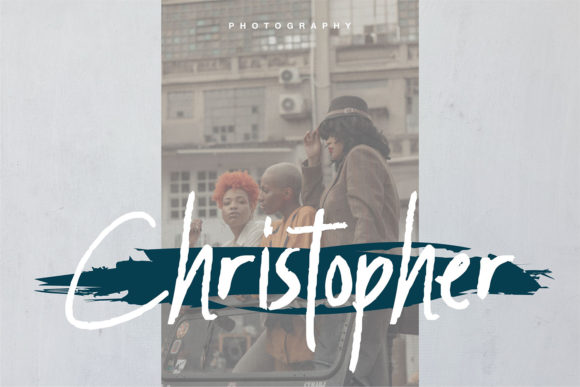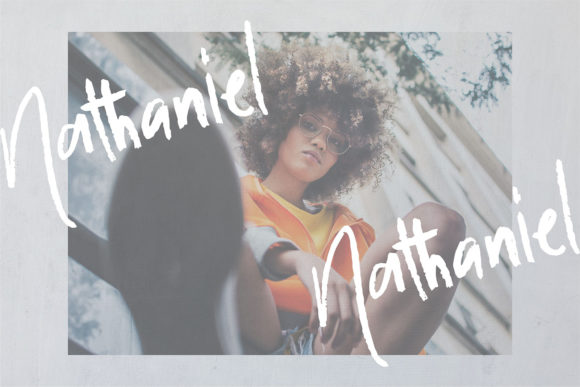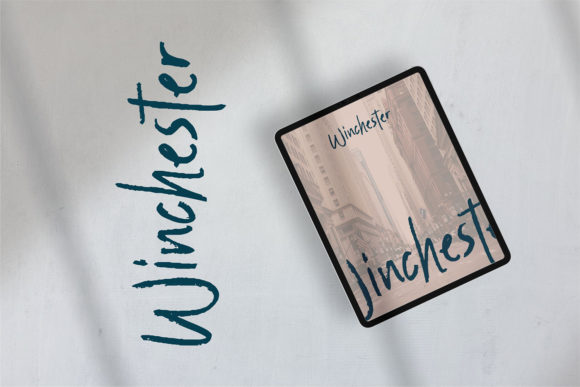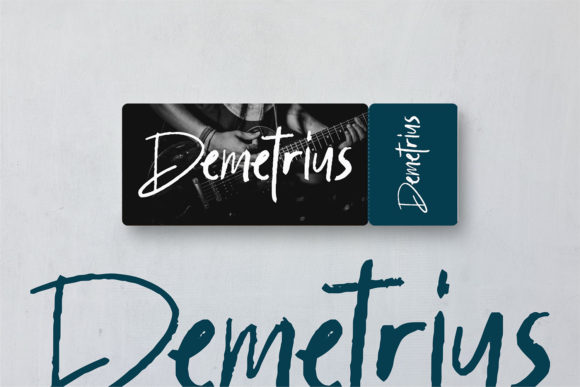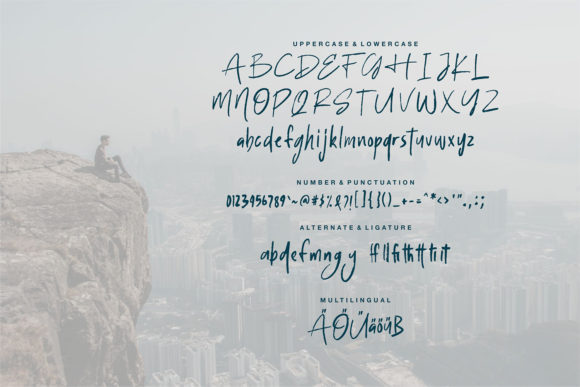
Adaury Font
About Adaury Font
“Adaury” is a stylish and brittle brushed handwritten font that captures attention with its eye-catching and charming appearance. With its unique brush strokes and elegant design, this font has the power to elevate your design ideas and make them stand out.
The beauty of “Adaury” lies in its stylish and brittle look. The brush strokes used in the font give it a textured and handcrafted feel, adding a touch of authenticity and character to your designs. The letters have a delicate and graceful appearance, making them visually captivating and appealing.
When it comes to catching the viewer’s attention, “Adaury” does not disappoint. The unique brush style of the font creates a visual impact, drawing the eye and making your design elements pop. Whether you’re using it for headlines, titles, or logos, “Adaury” will make a statement and leave a lasting impression.
Charm is another characteristic of “Adaury” that sets it apart. The font’s brittle and delicate design adds a touch of elegance and sophistication to your designs. It conveys a sense of refinement and class, making it perfect for projects that require a touch of luxury or exclusivity.
One of the advantages of “Adaury” is its versatility. It can be used in various design contexts, such as branding, packaging, invitations, posters, and more. The font’s stylish and brittle look allows it to adapt to different themes and concepts, adding a touch of visual interest and allure.
Whether you’re designing a high-end fashion brand, a luxurious wedding invitation, or an eye-catching poster, “Adaury” will elevate your design and give it a touch of sophistication. Its unique brush strokes and charming appearance make it a valuable asset in creating visually stunning and memorable designs.
In addition to its aesthetic appeal, “Adaury” is also easy to work with. The font’s well-designed characters ensure legibility and readability, making it suitable for both large and small text sizes. This allows you to maintain clarity and professionalism in your designs while still enjoying the font’s stylish and brittle look.
In conclusion, “Adaury” is a stylish and brittle brushed handwritten font that adds a captivating and charming touch to your designs. Its eye-catching appearance, along with its versatility, makes it a valuable asset in elevating your design ideas and creating visually stunning and memorable projects. Embrace the charm and elegance of “Adaury” and let it transform your designs into works of art.